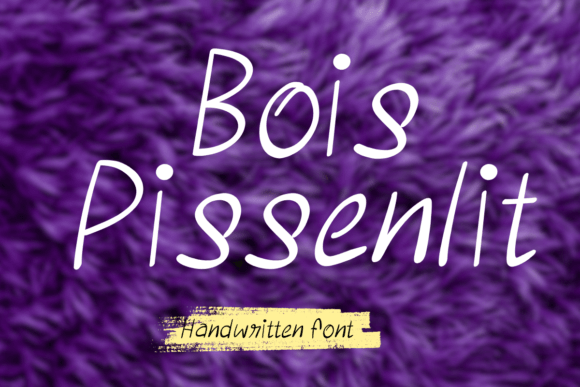
Escape the mundane with Bois Pissenlit, the quintessential font that unleashes your playful spirit and sets your designs apart. This captivating script font, meticulously crafted by Piyata Digital, captivates with its whimsical curves and dynamic strokes.
Dive into a world of creative possibilities as Bois Pissenlit's youthful charm transforms your projects into expressions of pure delight. Its versatility knows no bounds, effortlessly adapting to both professional and casual designs. Envision your branding designs, labels, websites, and business cards exuding a unique charm that leaves a lasting impression.
For those seeking a touch of whimsy, Bois Pissenlit becomes an indispensable tool. Its versatility extends to packaging, posters, flyers, quotes, social media posts, invitations, and special occasion cards, infusing each creation with a dash of playfulness and sophistication.
Welcome Bois Pissenlit into your creative arsenal and watch it ignite a spark of creativity. Unleash your imagination and embark on a journey where every design tells a captivating story. Download Bois Pissenlit today and let your designs blossom with a touch of youthful exuberance.